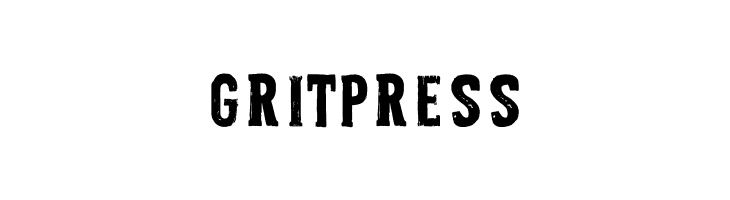
( Fonts by Dimitri Castrique )
A bold, distressed font with a gritty, vintage industrial style.
A playful, cursive font with fluid, whimsical strokes.
An elegant serif font with a classic italic slant and refined details.
A bold serif font with high contrast and classic appeal.
( Ian Howe )
A casual, handwritten font with fluid strokes and a personal touch.
A bold, dynamic brush script with expressive strokes and a hand-painted look.
A modern, rounded font with a playful and approachable style.
A vintage, elegant script font with flowing, sophisticated characters.
A dynamic, expressive handwritten font with fluid, elegant strokes.
A playful, flowing script font with elegant curves and smooth strokes.